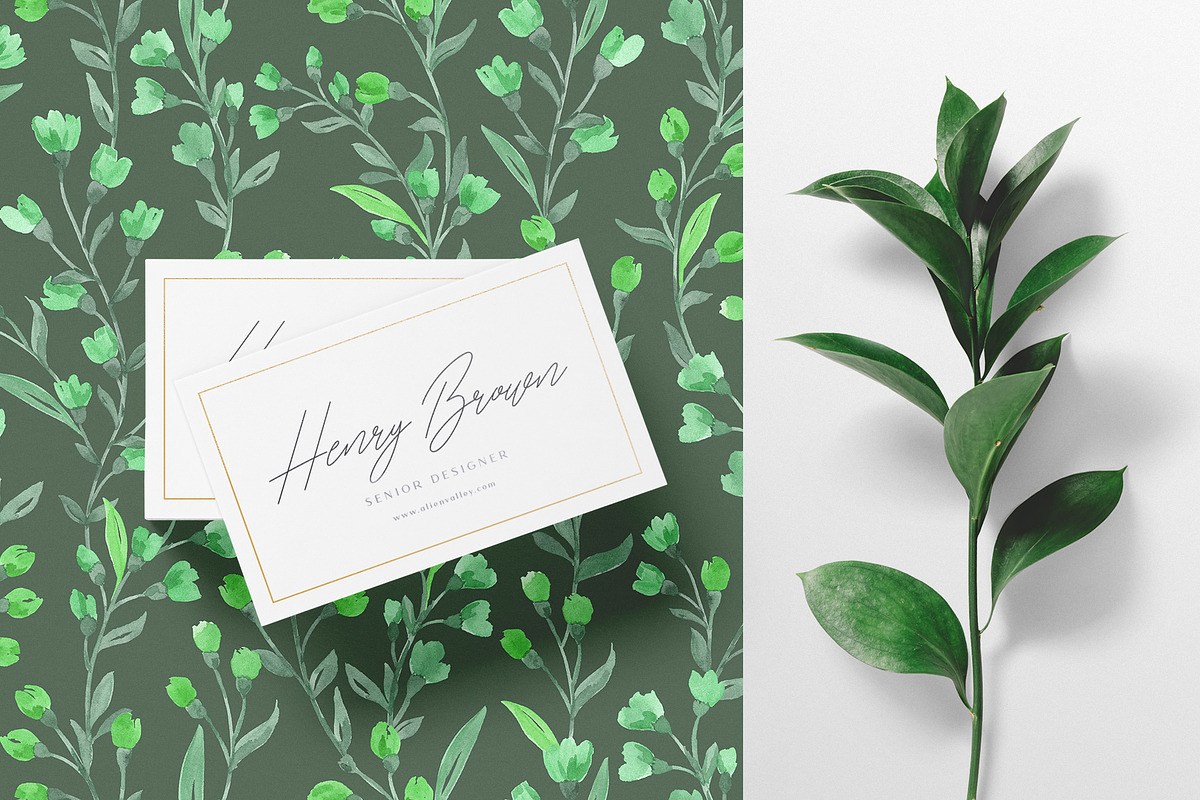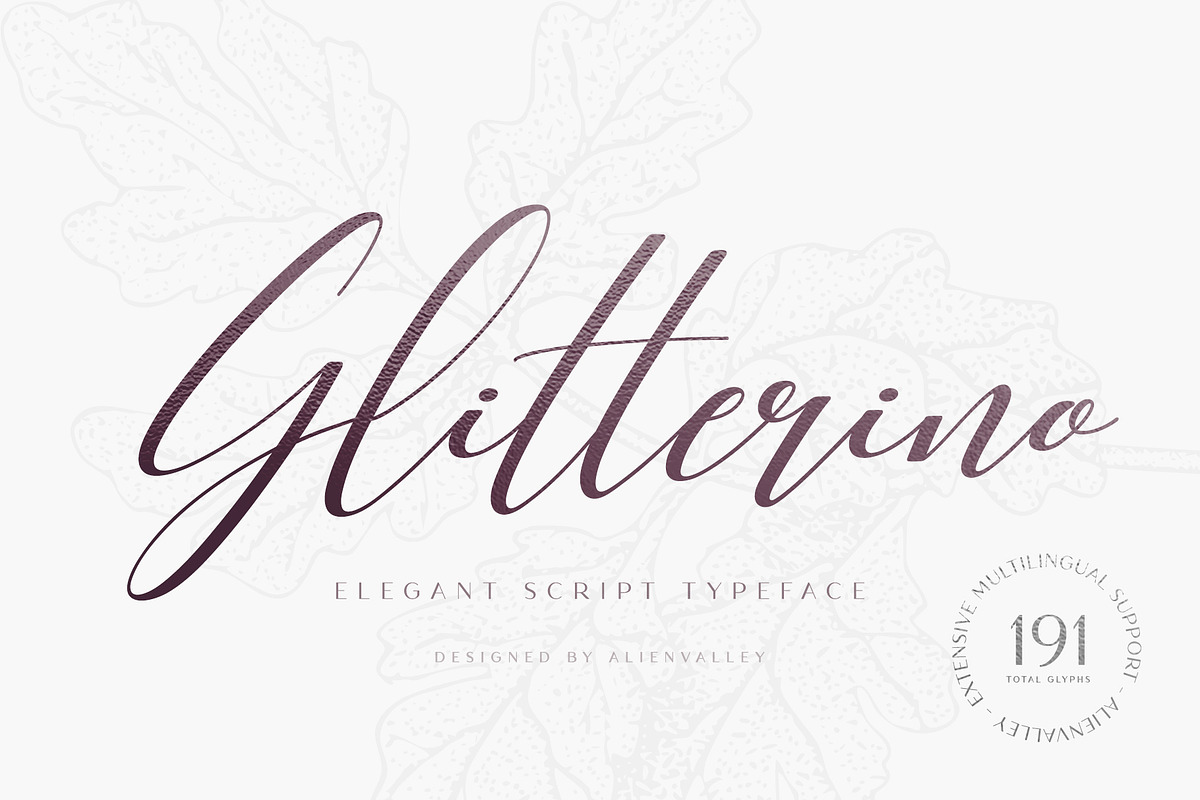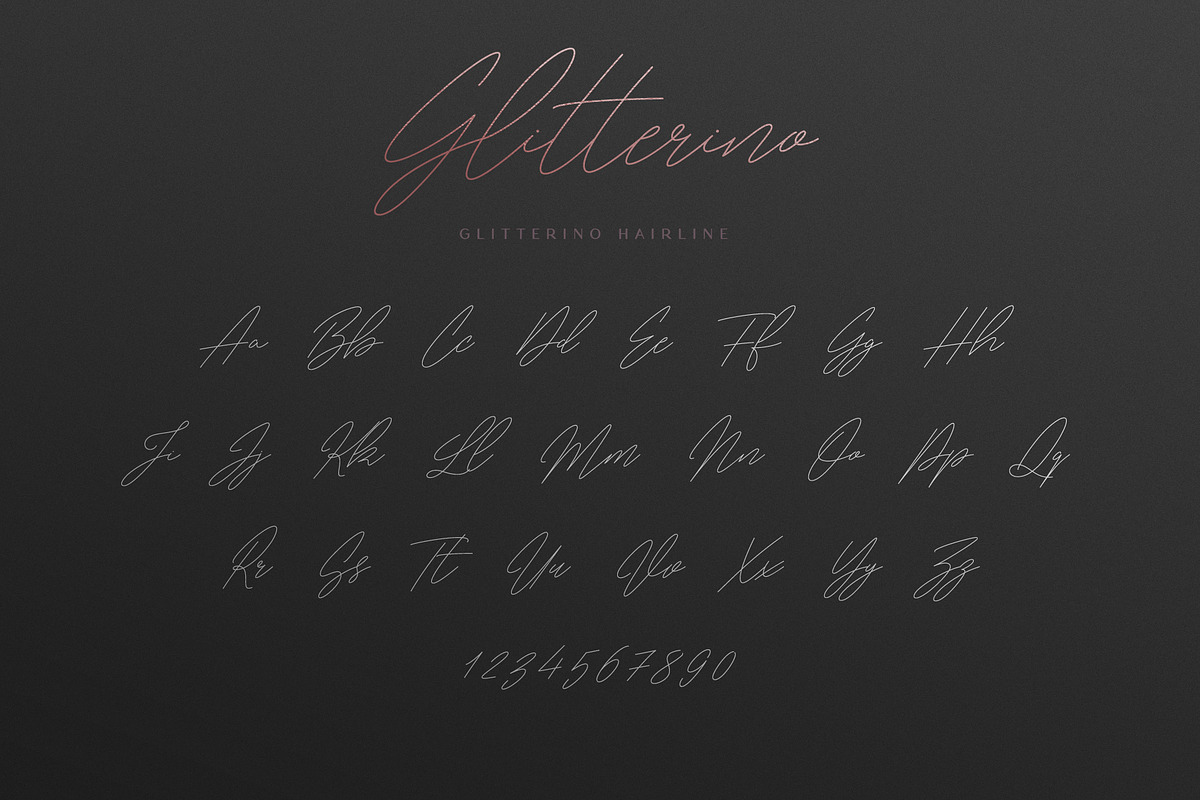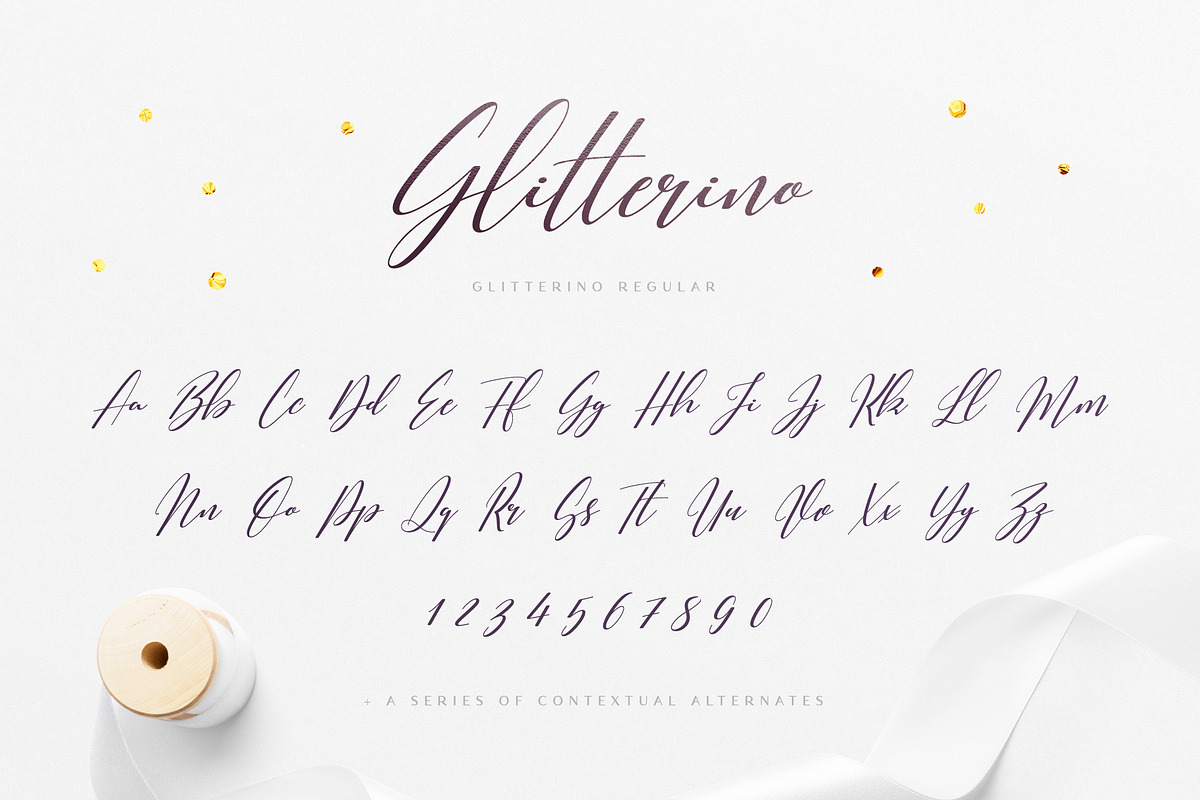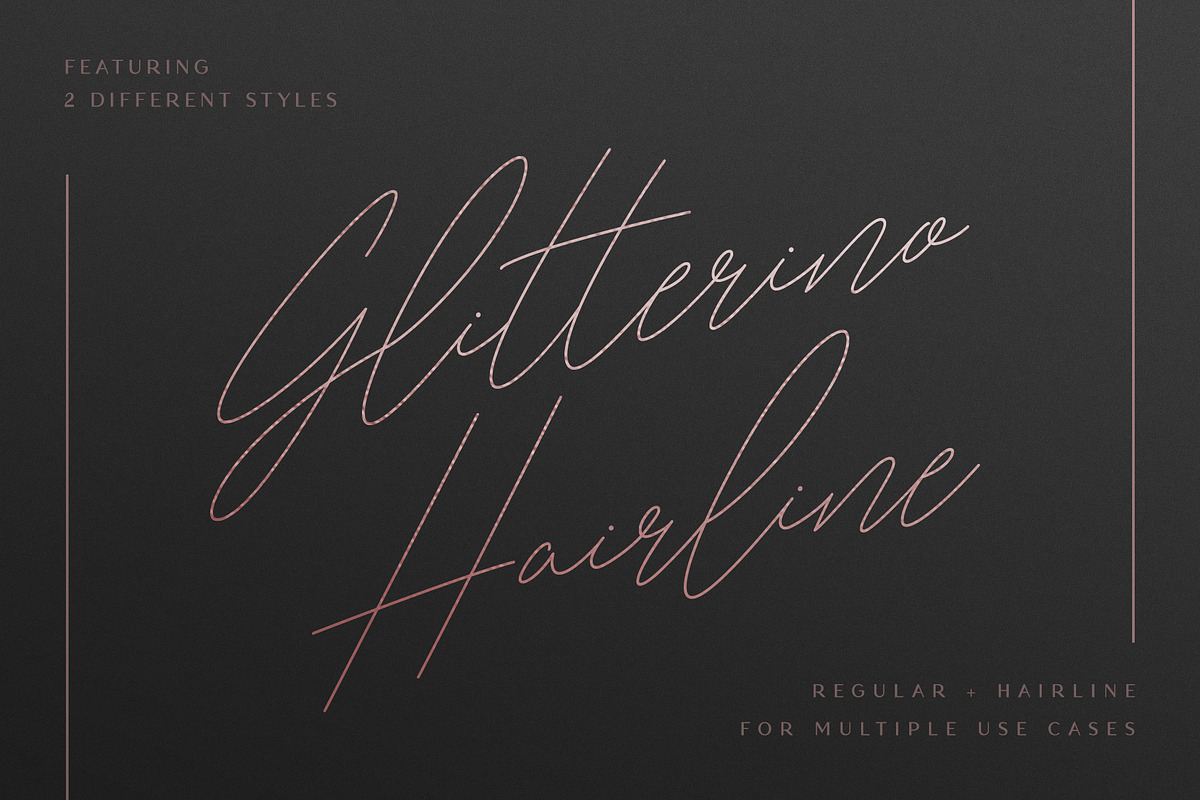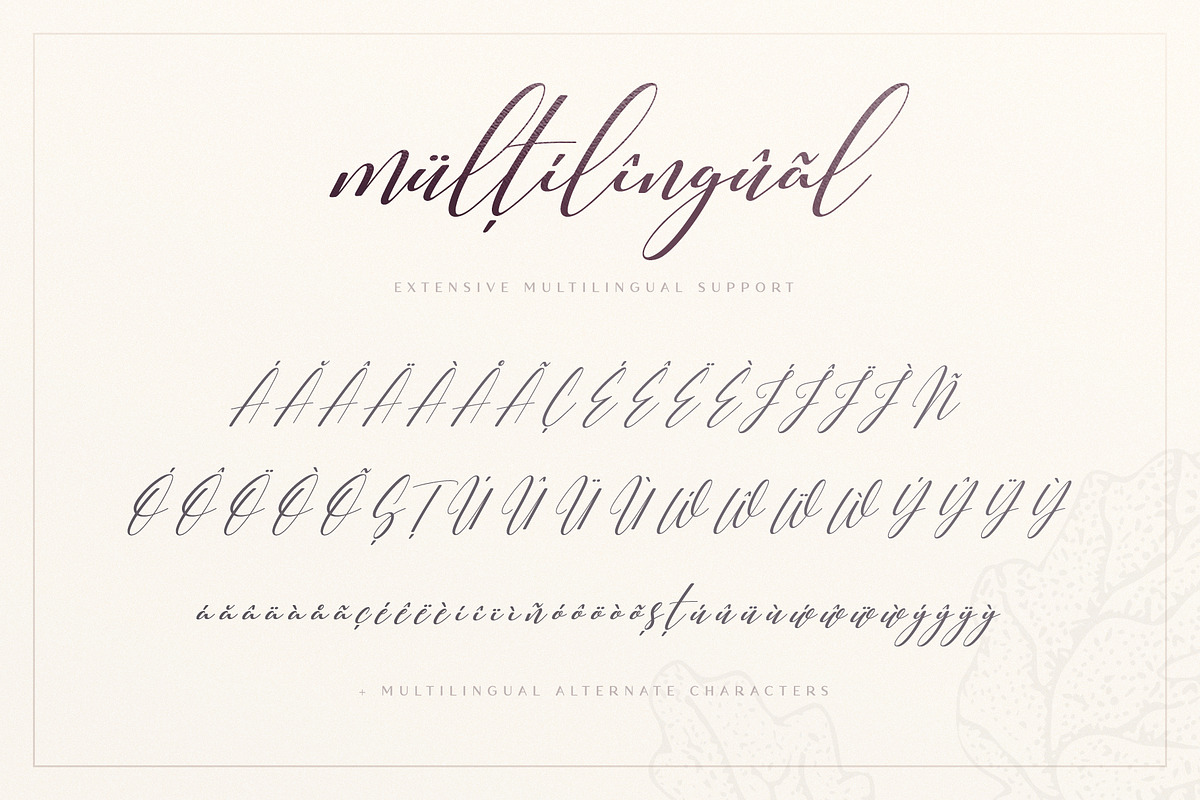
Glitterino - Stylish Script Font
Glitterino is an elegant script typeface featuring 2 styles (regular & hairline) and multilingual support. The font looks great when paired with serif or sans-serif fonts and the hairline version works well for signatures.
- 2 Styles (regular + hairline)
- Contextual alternates